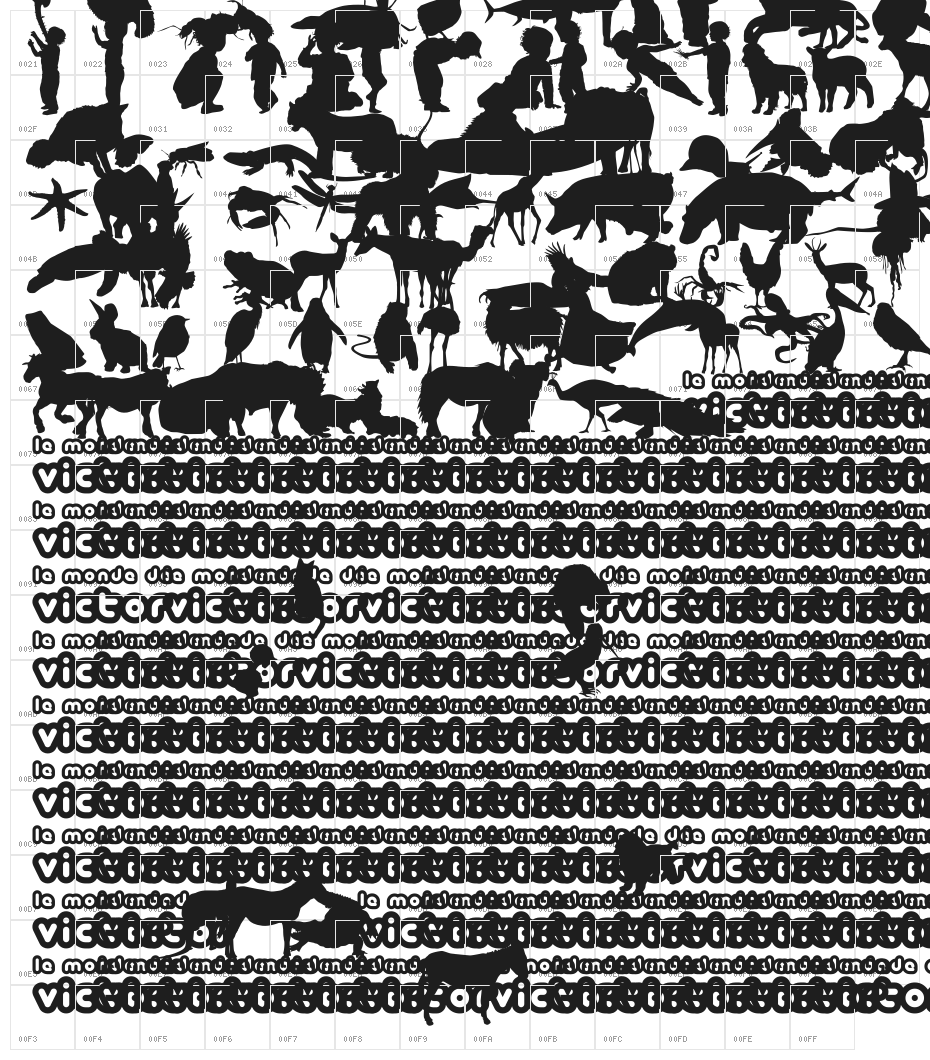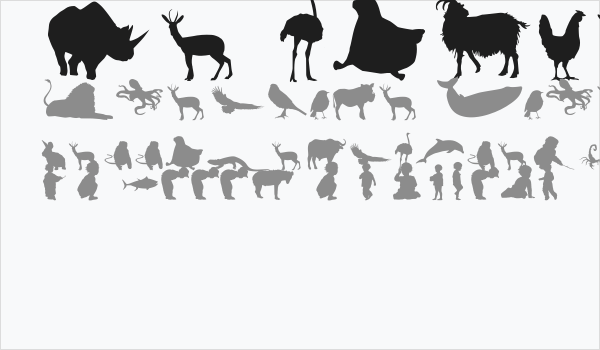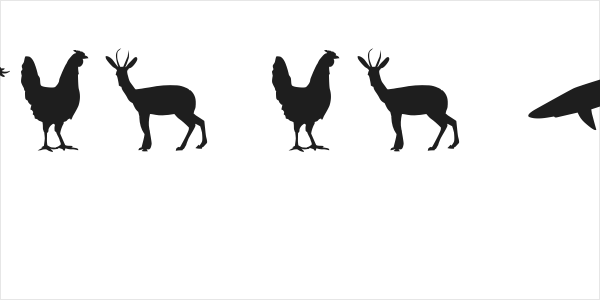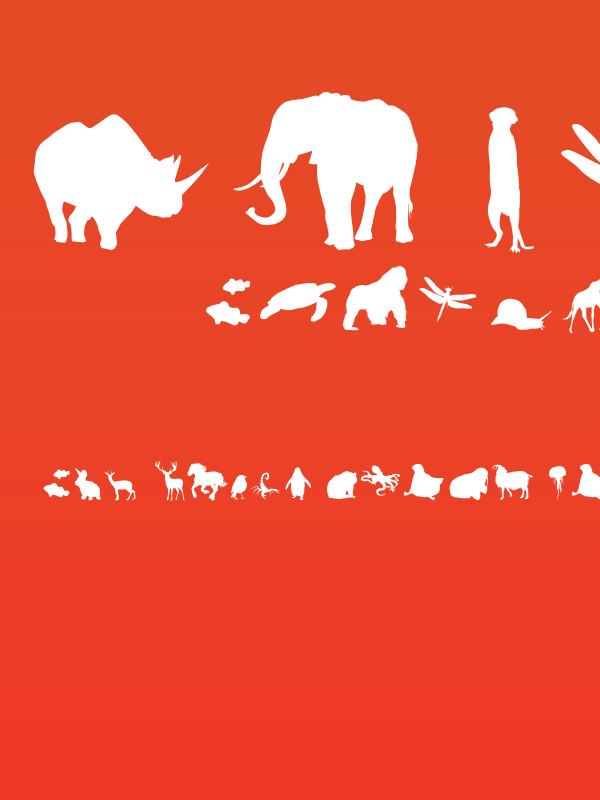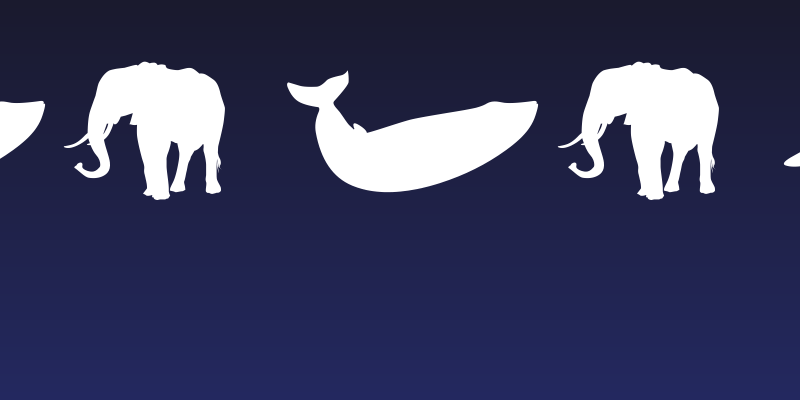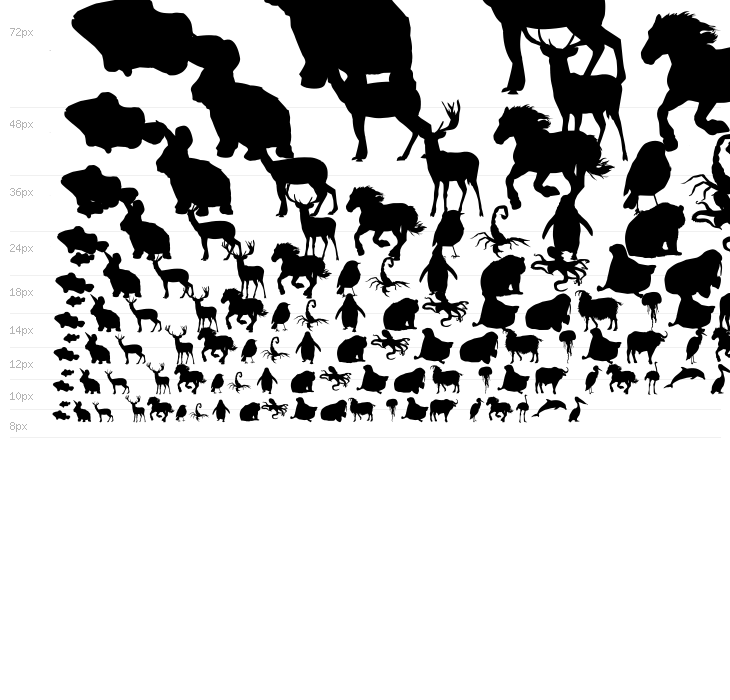
Le monde de Victor Font
Le monde de Victor Description
A playful decorative font composed of black silhouettes of various animals, sea creatures, birds, insects, and children in different poses, each representing a different character. The glyphs are highly illustrative and detailed, with each letter or symbol taking the form of a unique silhouette rather than a traditional typographic shape.
| Overall Style | Decorative, Playful, Whimsical |
| Use Case | Logos, Headlines, Posters, Educational content |
| Proposed Projects | ChildrenΓ’β¬β’s books, educational materials, playful posters, animal-themed branding, creative invitations. |